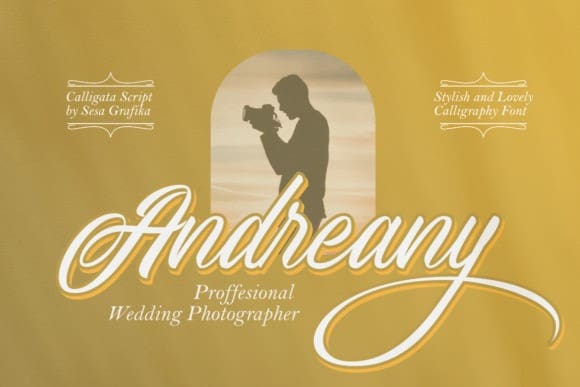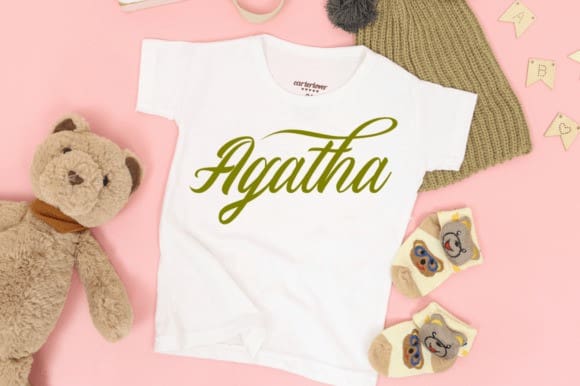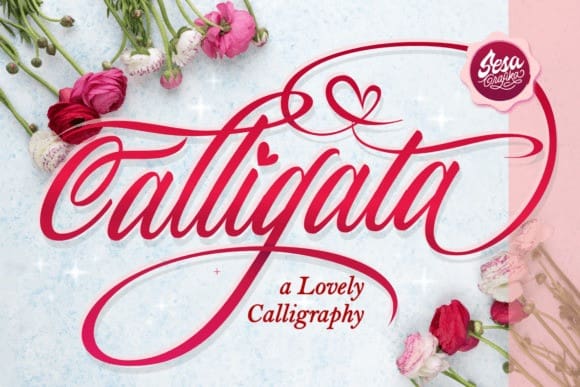
Calligata Font
Calligata Font is a stylish and Lovely font suitable for a wide spectrum of applications. From greeting cards to headlines, this font will guarantee a romantic touch to each of your creations! This font is PUA encoded which means you can access all of the glyphs and swashes with ease!